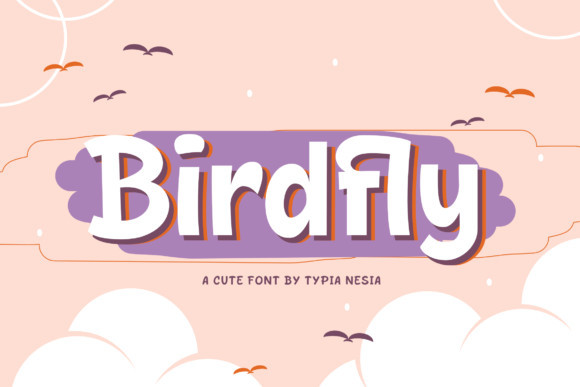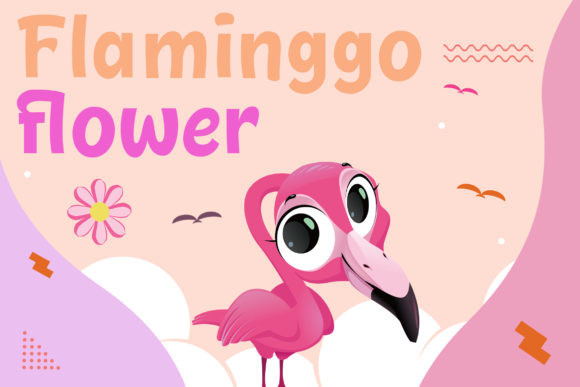
Birdfly Font
Birdfly is a bold yet sweet display font. Its friendly feel makes this font incredibly versatile, fitting a wide range of contexts. Add it to your creative ideas and notice how it makes them stand out!